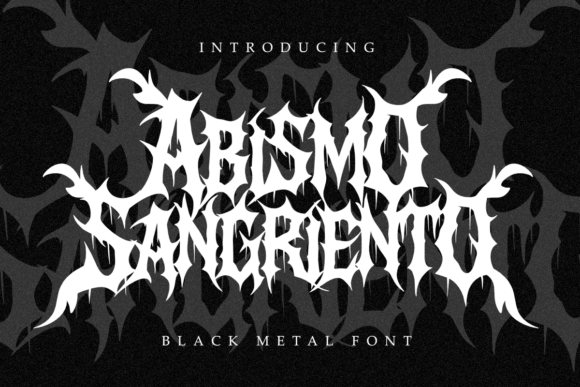
Abismo Sangriento Font: Unleash the Fury of Extreme Visuals
In the realm of extreme metal and dark design, typography plays a crucial role in conveying the intensity and aggression that defines these genres. For those who crave visuals that are as brutal as they are captivating, the Abismo Sangriento font emerges as a game-changer. This article delves into the depths of this unique typeface, exploring its design, inspirations, and the myriad of applications where it shines.
Introduction to Abismo Sangriento
Abismo Sangriento, which translates to “Bloody Abyss” in English, is a black metal font that embodies the raw power and darkness of extreme music and horror aesthetics. Designed with meticulous attention to detail, this font is not just a collection of letters; it’s an experience. It’s a gateway to creating visuals that are as haunting as they are mesmerizing.
The Design: A Symphony of Aggression
Abismo Sangriento is characterized by its sharp thorns, twisted strokes, and an overall unholy aesthetic that sets it apart from more conventional typefaces. Each letterform is crafted to convey a sense of chaos and aggression, making it the perfect fit for projects that demand an extreme visual identity.
- Sharp Thorns and Twisted Strokes: The font’s design incorporates sharp, jagged elements that evoke a sense of danger and unpredictability. These features are not just for show; they contribute to the font’s readability in various contexts, from bold headlines to intricate designs.
- Unholy Aesthetic: The overall look and feel of Abismo Sangriento are deeply rooted in the dark, mysterious, and often terrifying imagery associated with extreme metal and horror themes. This aesthetic ensures that any project using this font will have an unmistakable edge.
Inspirations: The World of Extreme Metal
Abismo Sangriento draws its inspiration from the logotypes of extreme metal bands. These logos often feature intricate designs, gothic lettering, and a clear emphasis on the aggressive and the macabre. By emulating these styles, Abismo Sangriento brings an authentic touch to any design project, resonating with fans of extreme music and dark aesthetics.
The font’s creator aimed to capture the essence of these band logos, translating their raw energy and aggression into a versatile typeface. This process involved a deep dive into the visual elements that make extreme metal branding so distinctive:
- Authenticity: Ensuring the font felt genuine to the extreme metal scene.
- Legibility: Making sure the font was readable, even at various sizes and in different applications.
- Uniqueness: Crafting a font that stands out, yet feels at home among other extreme metal designs.
Applications: Where Abismo Sangriento Shines
Abismo Sangriento’s versatility means it can be used in a wide range of projects, from music-related designs to apparel and beyond. Here are some areas where this font truly excels:
- Death Metal Logos: The font’s aggressive design makes it a natural fit for death metal band logos, capturing the genre’s intensity and complexity.
- Underground Music Posters: For posters advertising underground metal shows or festivals, Abismo Sangriento provides a visual hook that grabs attention and sets the tone for the event.
- Album Covers: Album artwork for extreme metal albums demands a certain level of intensity. Abismo Sangriento delivers this, adding a layer of authenticity to the music within.
- Horror-themed Designs: Beyond music, the font’s dark aesthetic makes it suitable for horror-themed projects, such as movie posters, book covers, or video game artwork.
- Merchandise and Apparel: T-shirts, stickers, and other merchandise featuring Abismo Sangriento are sure to appeal to fans of extreme metal and dark culture.
- Gig Posters: For bands and musicians looking to create eye-catching gig posters, this font provides a compelling option that promises to draw in crowds.
- Dark Branding: Brands that operate on the darker side of the cultural spectrum will find Abismo Sangriento to be a valuable asset in establishing their visual identity.
Abismo Sangriento is more than just a font; it’s a tool for creators who wish to push the boundaries of their designs. Its brutal, highly detailed appearance and roots in extreme metal aesthetics make it a unique addition to any designer’s toolkit. Whether you’re crafting a logo for a death metal band, designing a horror-themed movie poster, or simply looking to add some edge to your branding, Abismo Sangriento offers a world of possibilities.
In the hands of a skilled designer, Abismo Sangriento can become a powerful means of expression, channeling the raw energy and darkness that defines extreme culture. As a font that embodies the chaos and aggression of black metal and horror, it invites users to unleash their creativity and produce visuals that leave a lasting impact.
Getting Started with Abismo Sangriento
For those ready to dive into the world of extreme visuals with Abismo Sangriento, getting started is straightforward:
- Download the Font: Acquire Abismo Sangriento from a reputable font foundry or design marketplace.
- Install and Experiment: Install the font on your computer and experiment with different sizes, colors, and design contexts.
- Join the Community: Look for communities of designers and artists who work with extreme fonts. Sharing your work and getting feedback can be incredibly valuable.
Abismo Sangriento stands as a testament to the power of typography in defining the visual identity of extreme cultures. It’s a call to designers and artists to explore the darker side of creativity, to embrace the chaos and aggression that fuels their passion. With Abismo Sangriento, the possibilities are endless, and the impact is undeniable.